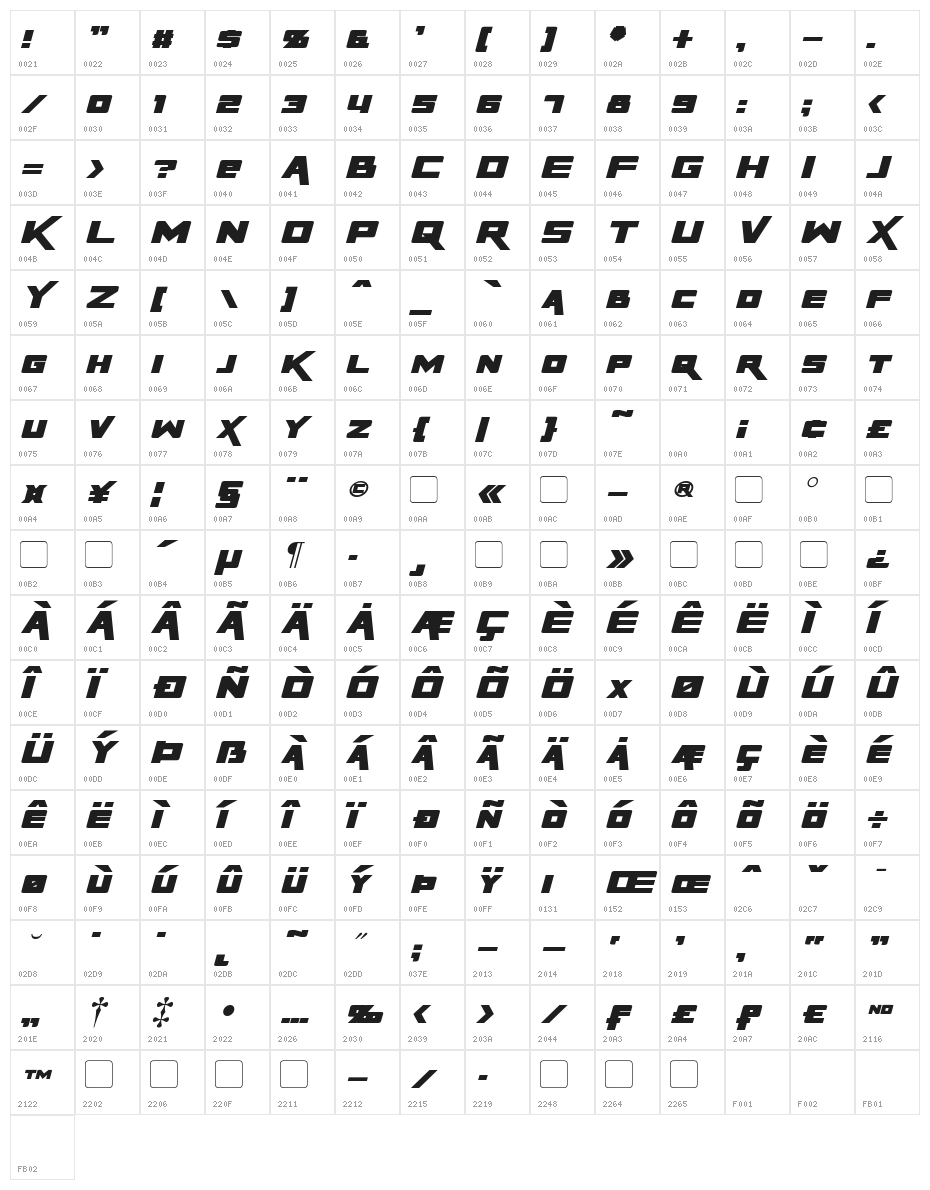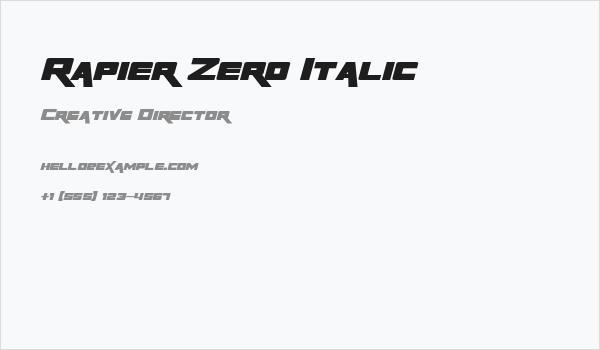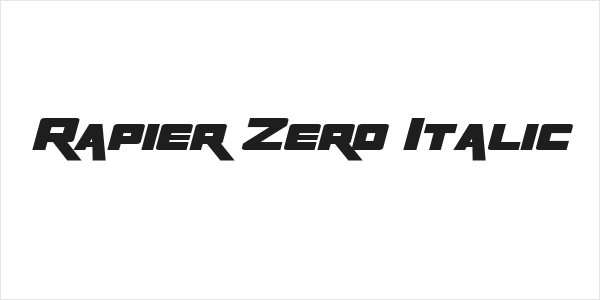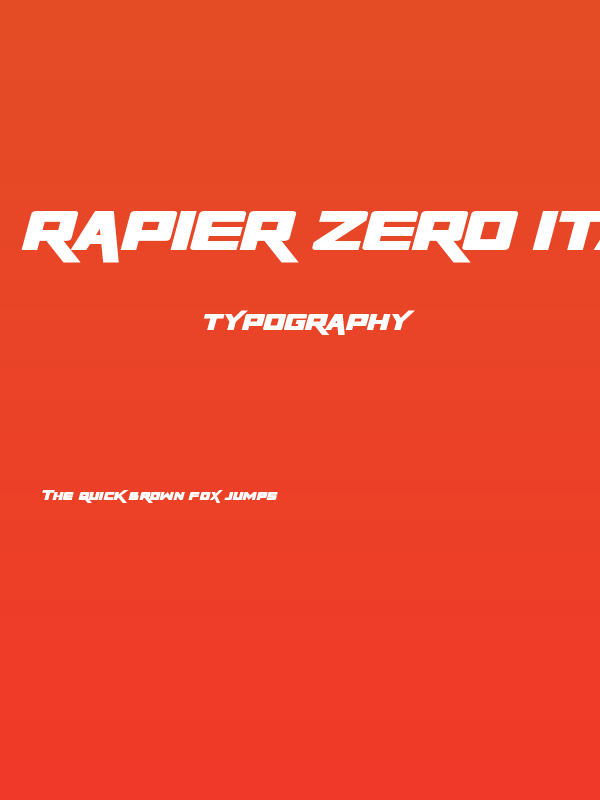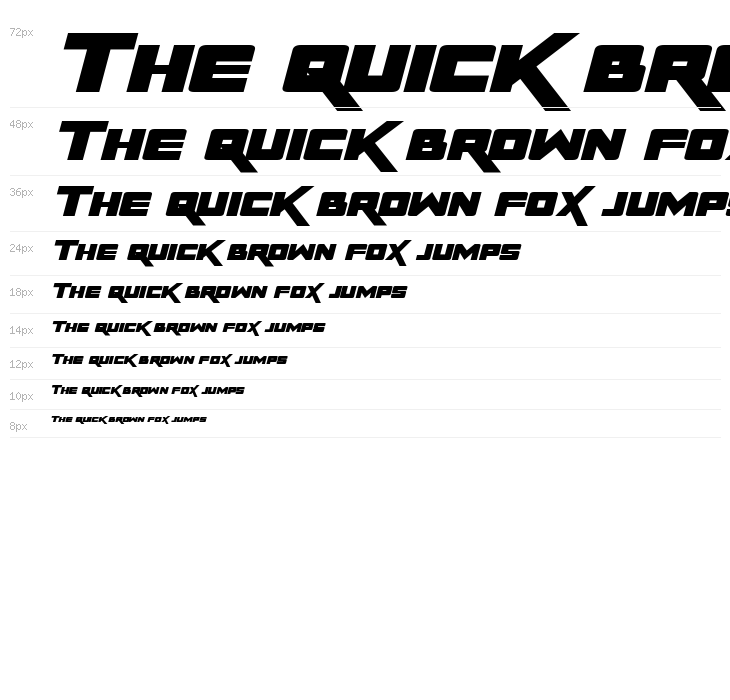
Rapier Zero Italic Font
Rapier Zero Italic Description
This font features a bold and dynamic style with a futuristic and angular design. The characters are italicized, giving them a sense of motion and speed. The strokes are thick and consistent, providing a strong visual impact. The sharp edges and geometric shapes contribute to its modern and edgy appearance. The font maintains a uniform width across all characters, ensuring readability while emphasizing its boldness. The character spacing is tight, which enhances its compact and cohesive look. This font is ideal for projects that require a striking and contemporary aesthetic.
Use CaseLogos, Headlines
Proposed ProjectsIdeal for sports branding, video game titles, tech logos, and sci-fi themed designs.